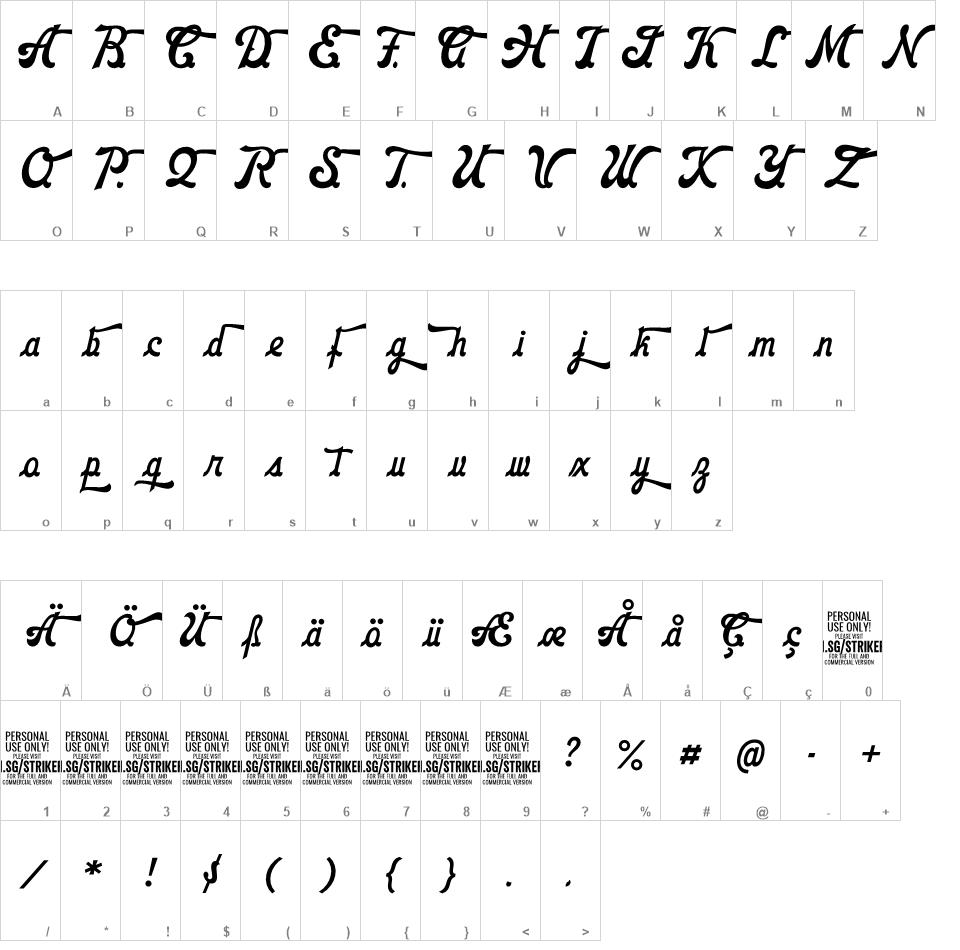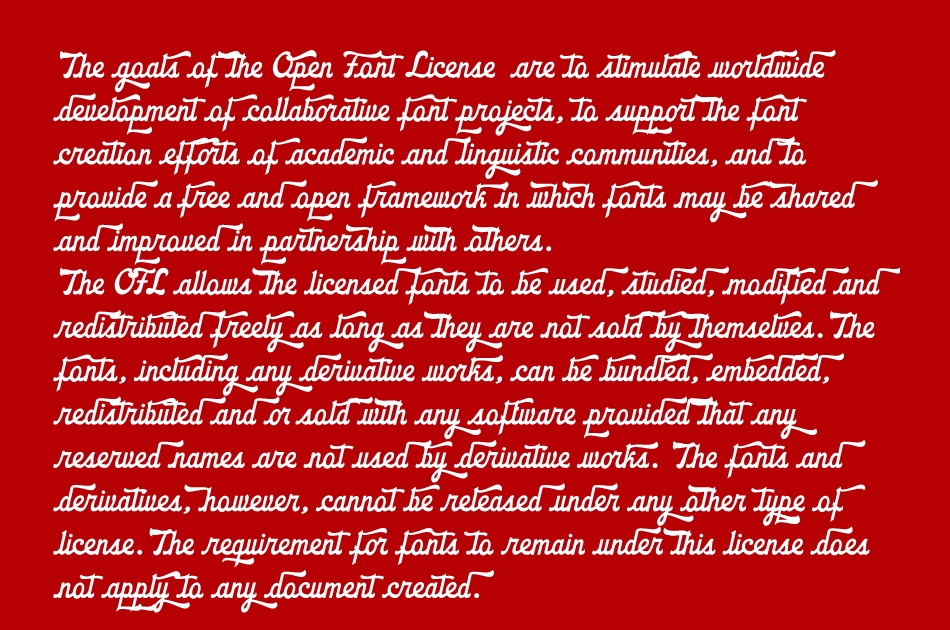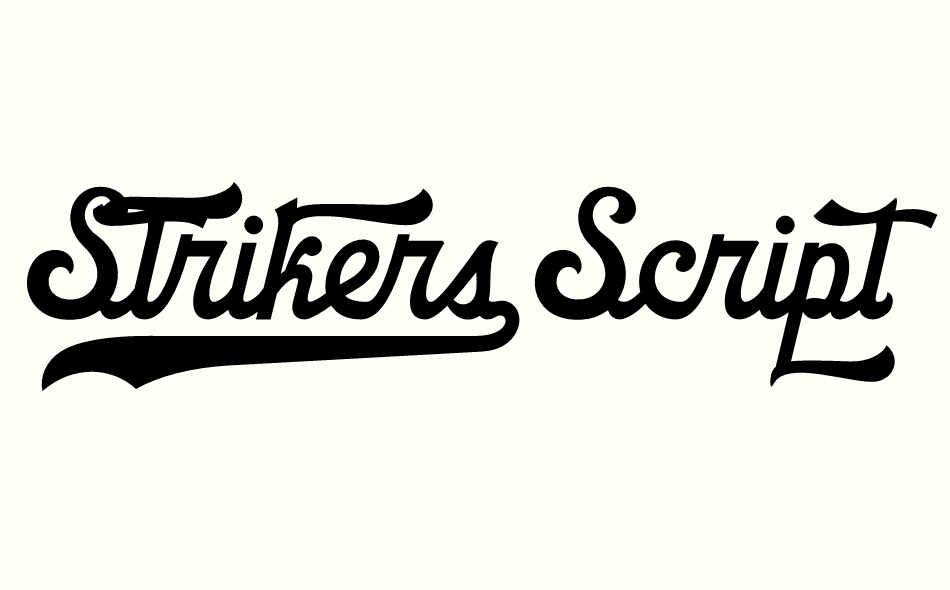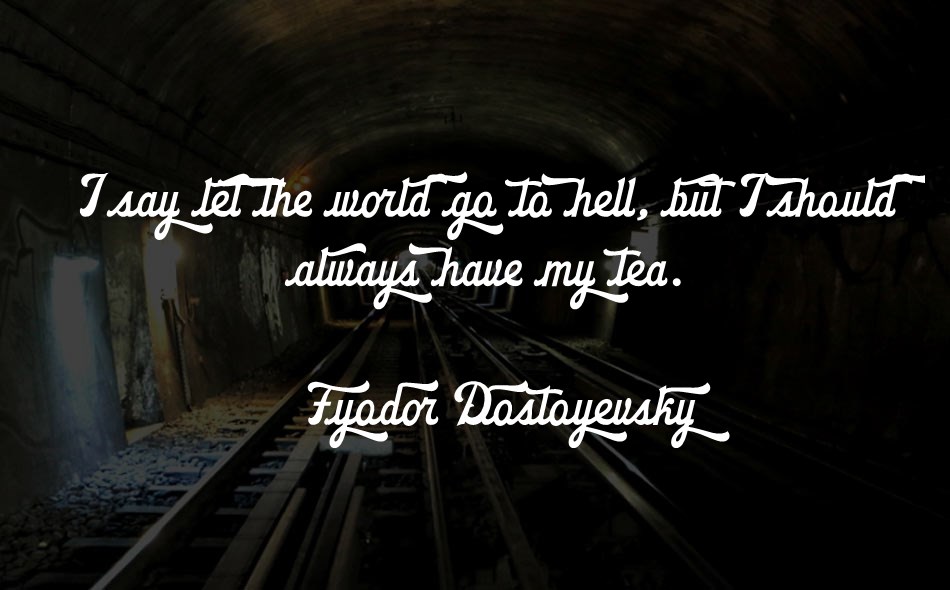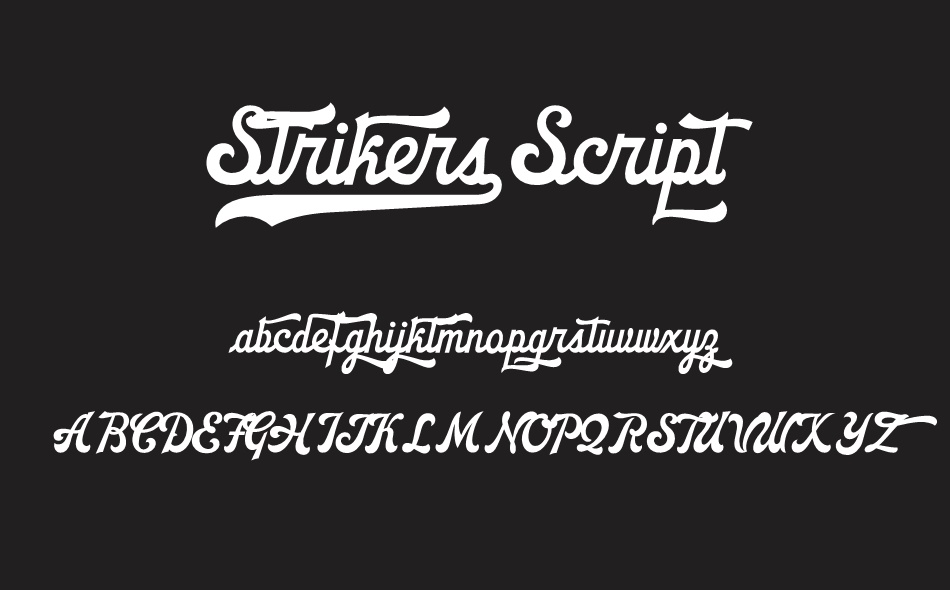
Strikers Script font
Use underscore _ to make a swash.
Example: Letter_
Use multiple underscores to make longer swashes.
Example: Baltimore____
Strikers Script font
Strikers Script is a vintage baseball font.
In a cool retro look, this calligraphic family has an optimistic attitude and the genuine appearance of a sport jersey or a club logotype.
The Strikers Script family consists of 14 professional styles, such as Thin, Bold, Outlined and Swashes, plus more variations and combinations, complimenting each other for ultimate usability.
Use underscore _ to make a swash. Example: Letter_ Use multiple underscores to make longer swashes. Example: Baltimore____
For the outlined version, use symbols < > around the word to make beginning and end. Example:
The font is built with advanced OpenType functionality and has a guaranteed top-notch quality, containing stylistic and contextual alternates, ligatures and more features; all to give you full control and customizability. It has extensive lingual support, covering all Latin-based languages, from Northern Europe to South Africa, from America to South-East Asia. It contains all characters and symbols you'll ever need, including all punctuation and numbers.